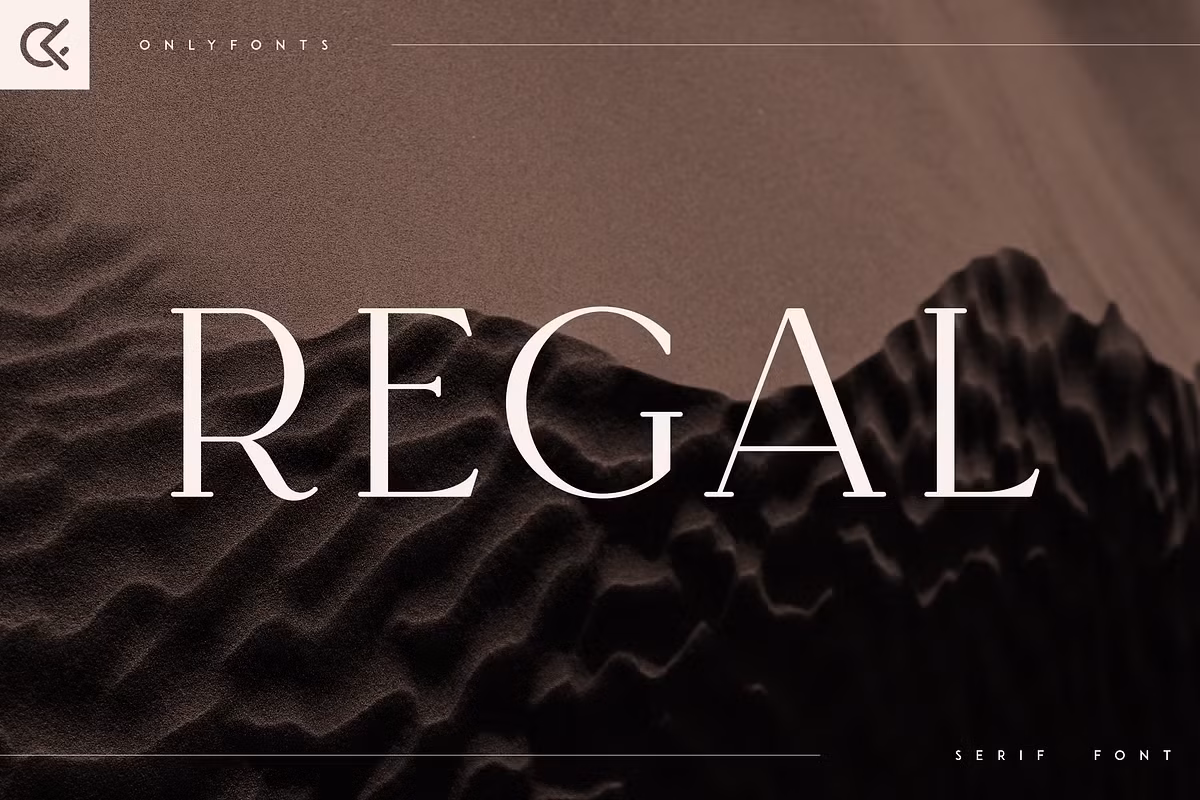
Regal - Elegant Serif Font Free Download
Regal - Elegant Serif Font Free Download is a refined and sophisticated serif typeface that combines timeless elegance with modern design elements. Featuring classic serifs, high contrast, and beautifully balanced letterforms, Regal is perfect for high-end branding, luxury packaging, editorial design, invitations, and sophisticated logos.
The clean yet intricate design of Regal offers readability while maintaining an air of sophistication, making it ideal for projects that require both style and clarity. Whether you're designing for a premium brand, a wedding invitation, or an elegant product label, Regal adds a touch of class to your typography.